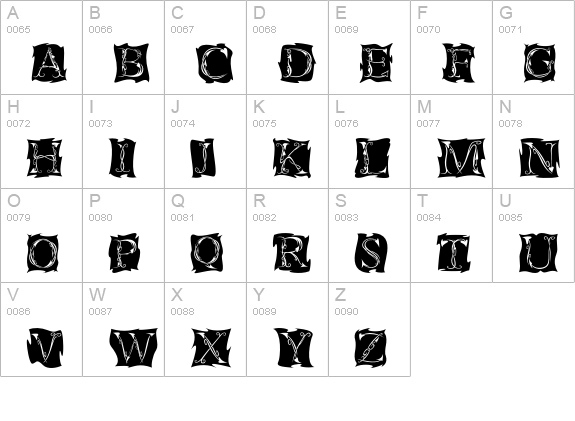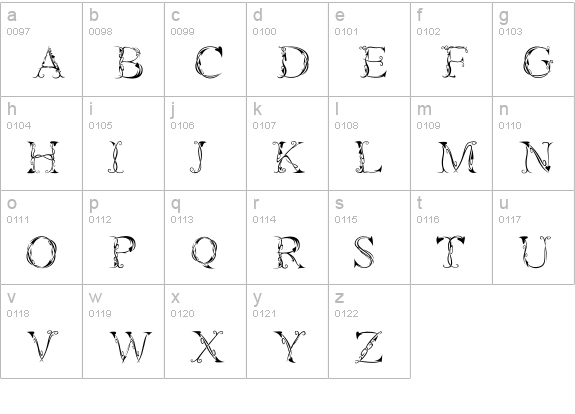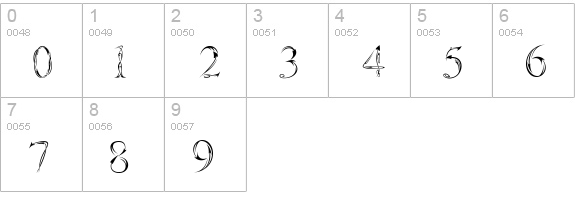
Tatoo Font Details
Introducing the captivating and edgy Tatoo font, a stunning typeface that adds a touch of rebelliousness to any design project. This unique font is characterized by its intricate details and bold strokes, making it perfect for tattoo-inspired artwork, posters, album covers, and more. With its distinct style and attention-grabbing appeal, Tatoo font brings an air of authenticity and individuality to your designs. Its carefully crafted letterforms create a sense of mystique and intrigue, drawing the viewer in with its undeniable charm. The versatility of Tatoo font is unmatched, as it seamlessly blends with various design themes, from vintage and retro to modern and contemporary. Its strong visual presence ensures that your message is conveyed with impact and style. What sets Tatoo font apart from the rest is not only its remarkable aesthetics, but also the fact that it is freely available to download at FontsMarket.com. Yes, you read that right - this extraordinary font can be yours without any cost. It's a fantastic opportunity to enhance your creative projects without breaking the bank. Whether you're a graphic designer, a tattoo artist, or simply someone who appreciates the artistry of fonts, Tatoo font is a must-have addition to your collection. Embrace the rebellious spirit it embodies and let your imagination run wild as you explore the endless possibilities it offers. Don't miss out on this incredible free font. Download Tatoo font today from FontsMarket.com and unleash your creativity like never before.